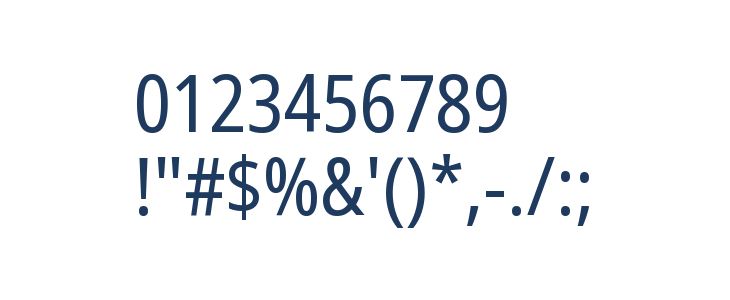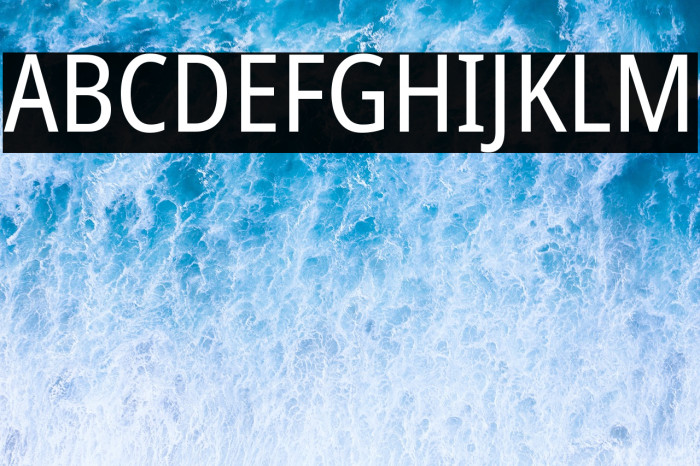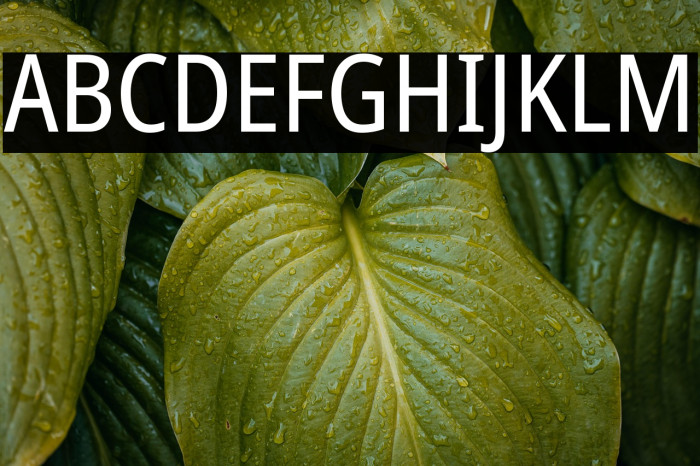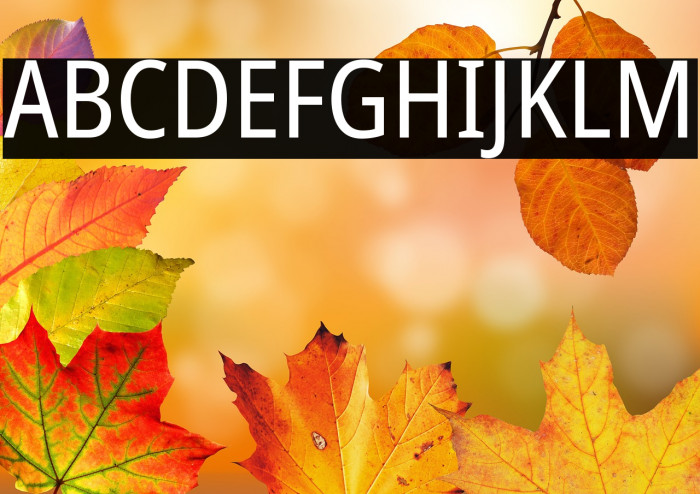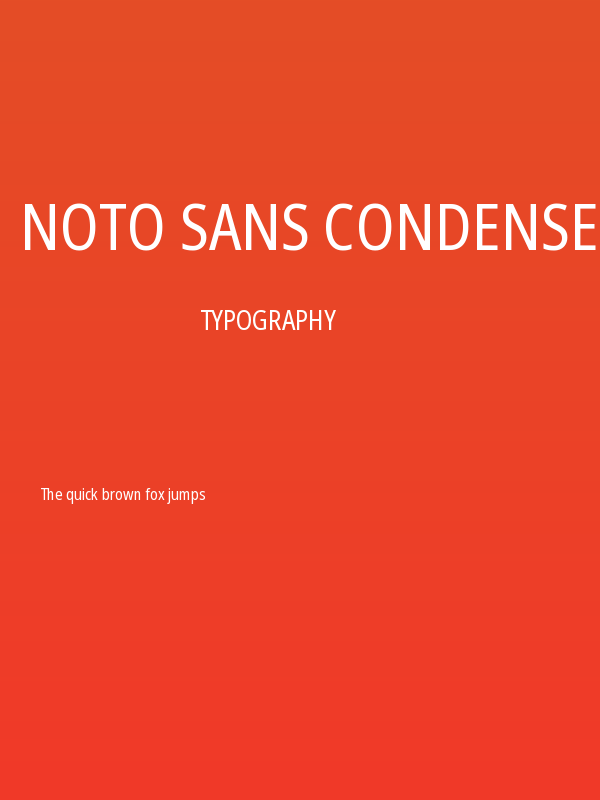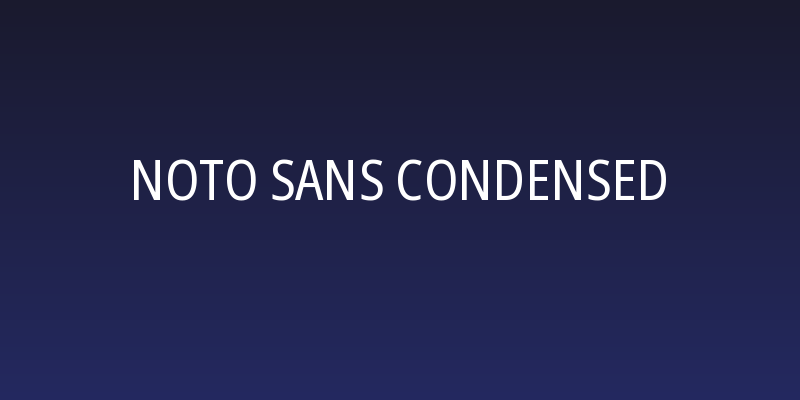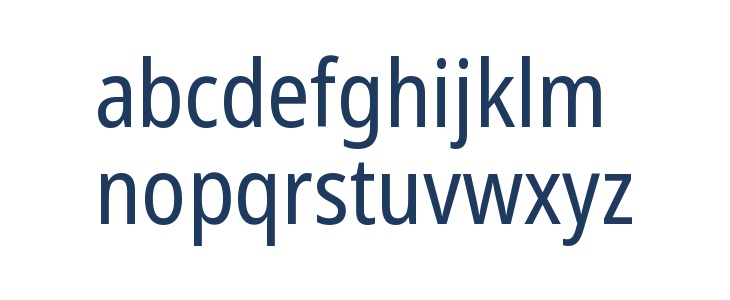
Noto Sans Condensed Font
Noto Sans Condensed Description
This typeface is a clean and modern sans-serif font with a condensed structure, making it highly versatile for various design applications. It features uniform stroke widths, contributing to a balanced and harmonious appearance. The characters are well-proportioned, with a slightly narrow width that allows for efficient use of space without sacrificing readability. The font includes a full set of uppercase and lowercase letters, numerals, and a variety of punctuation marks and special characters, ensuring comprehensive usability. Its straightforward design makes it suitable for both digital and print media, providing clarity and professionalism.
| Proposed Projects | Ideal for web design, branding, editorial layouts, and signage where space efficiency and clarity are essential. |